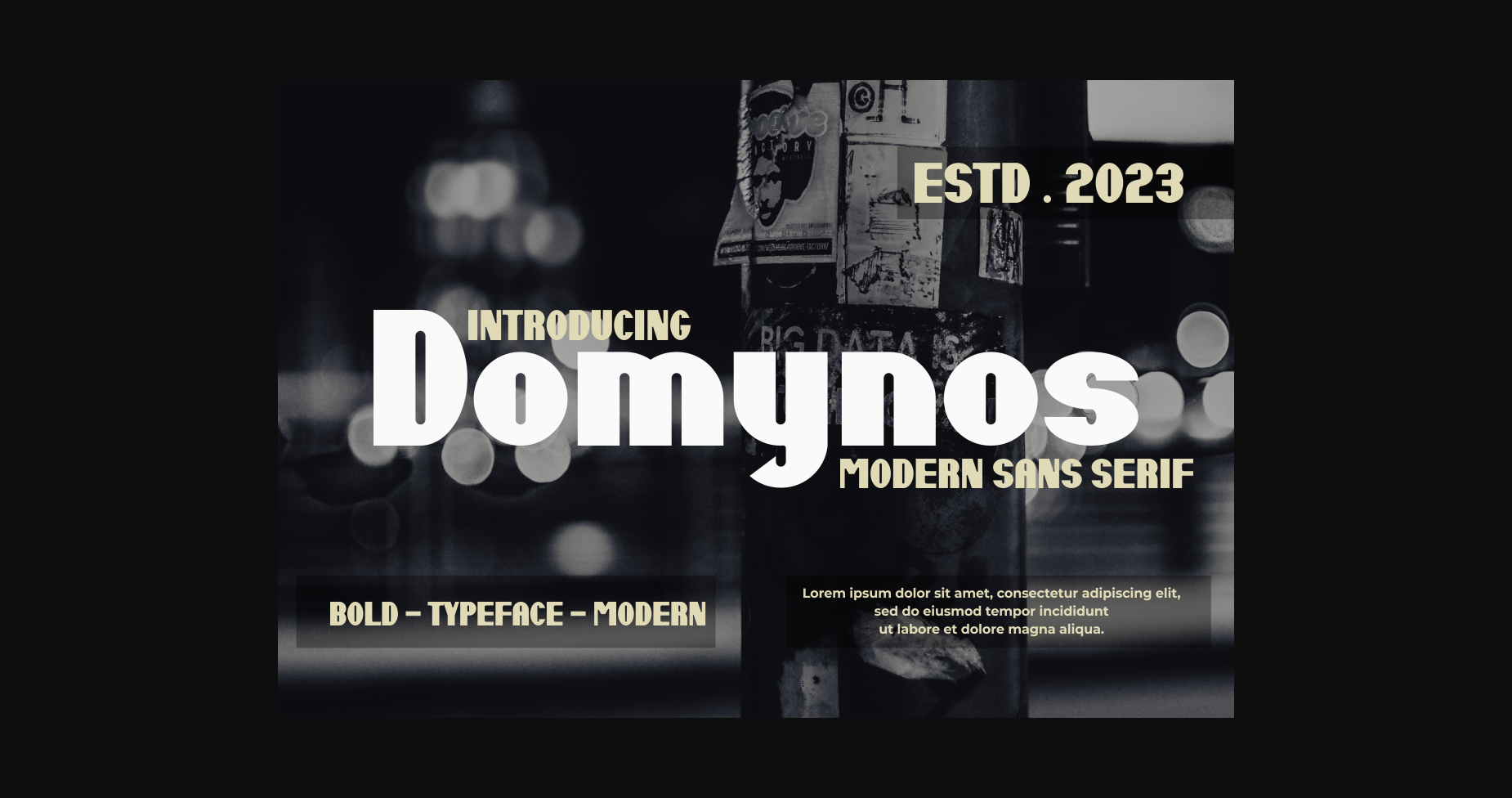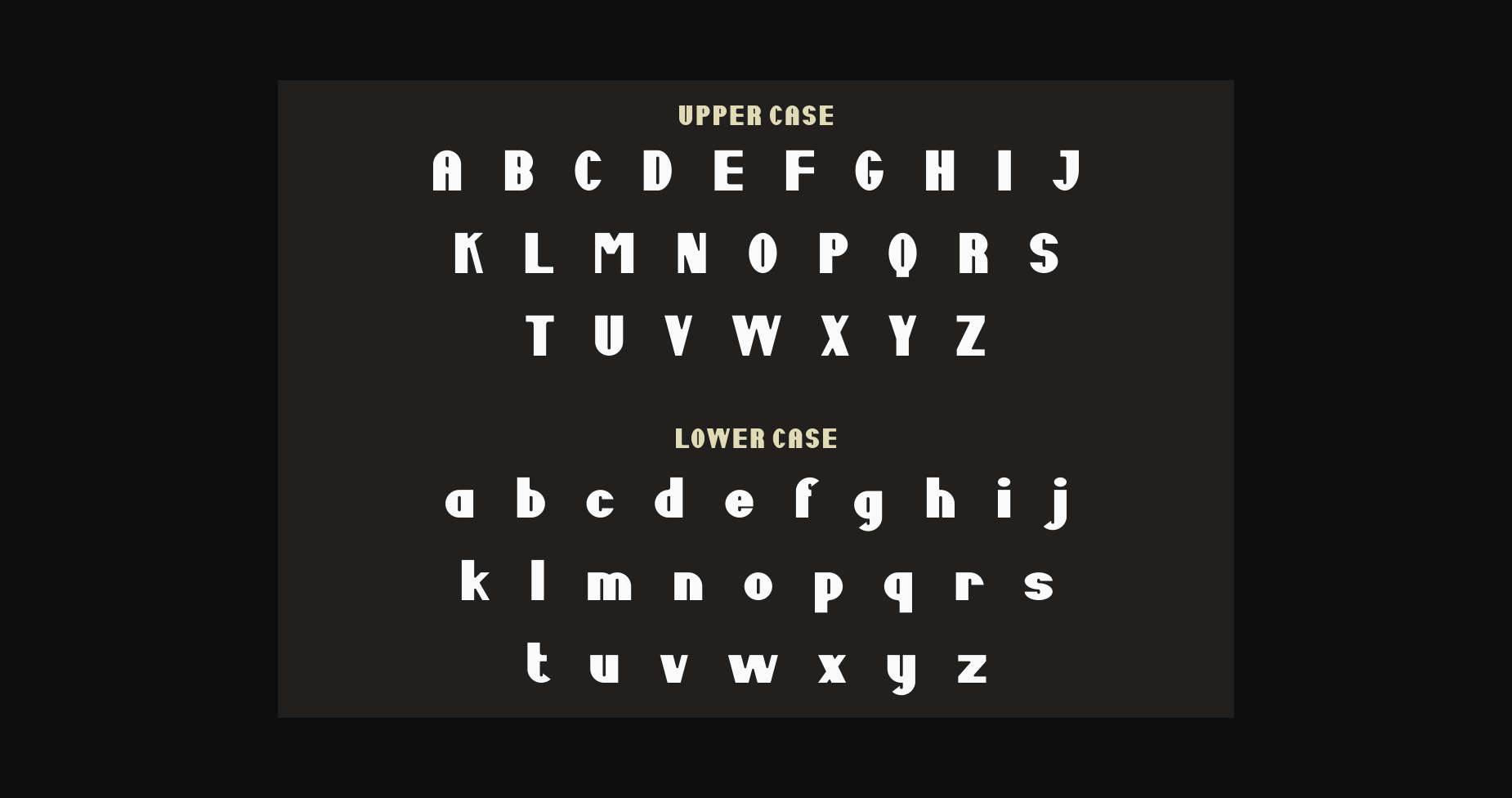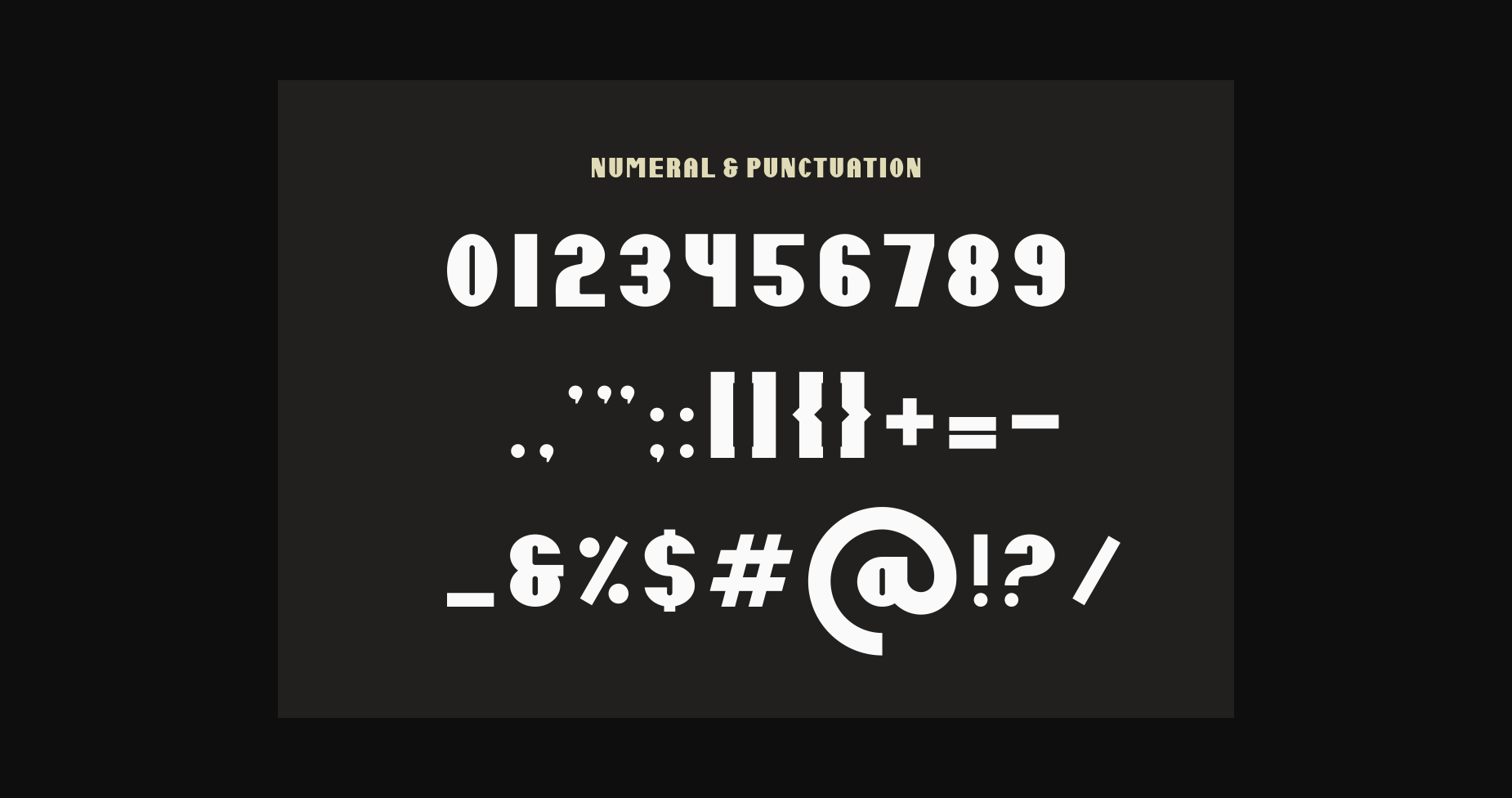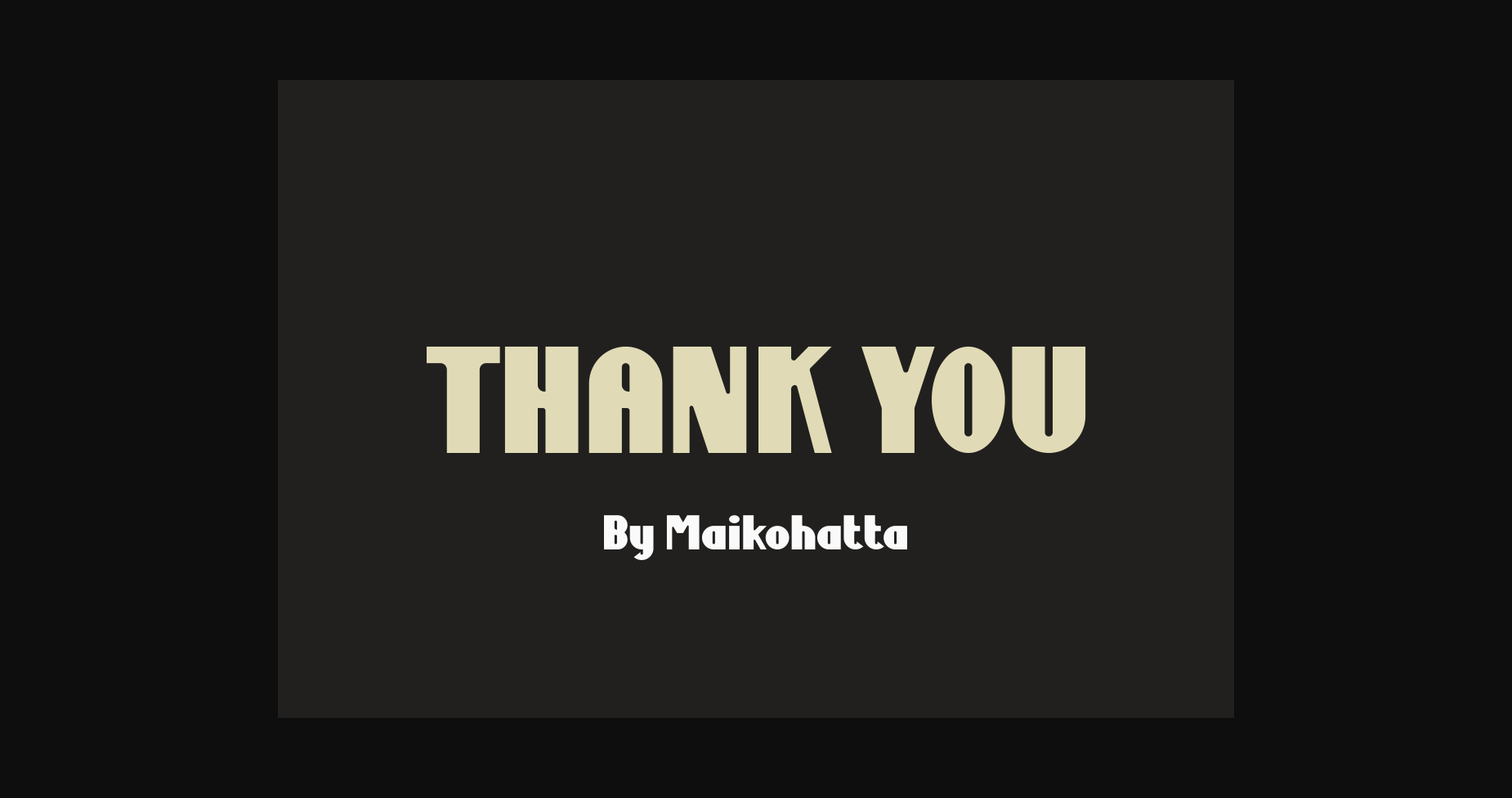
About Domynos Font
**Domynos Font** – Modern Font is a bold and authentic display font. The font is suitable for any branding project like logo, template design, sport, and many more. outstanding in a wide range of contexts.